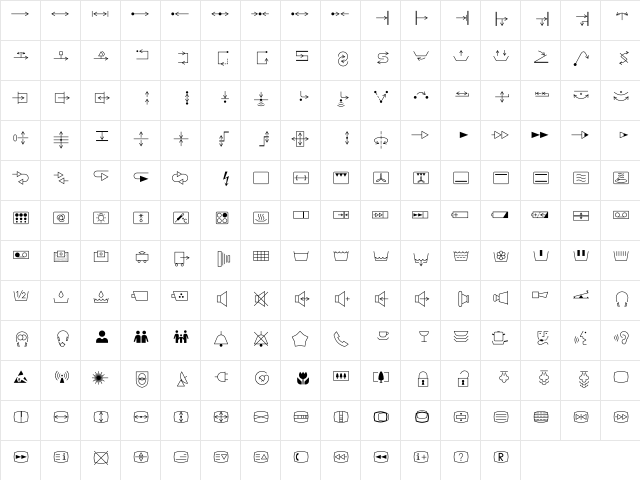
iec5000 Medium
Design Context for iec5000 Typeface
iec5000 is a composed and adaptable typeface that performs quietly and consistently across a wide range of design contexts.